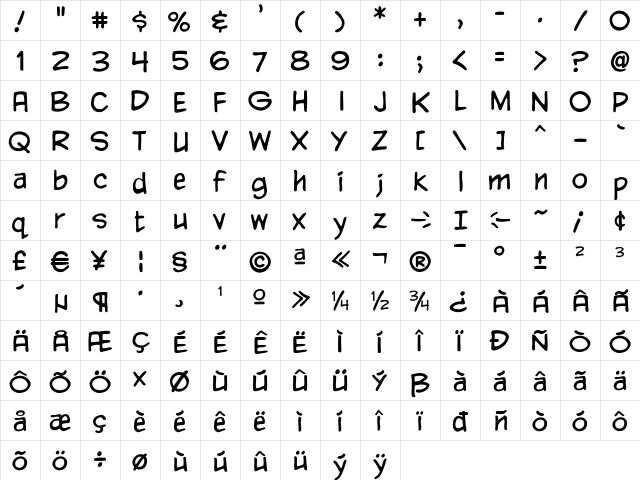
CCYadaYadaYadaInt Regular
Design Context for CCYadaYadaYadaInt Typeface
CCYadaYadaYadaInt is a composed and adaptable typeface that performs quietly and consistently across a wide range of design contexts.